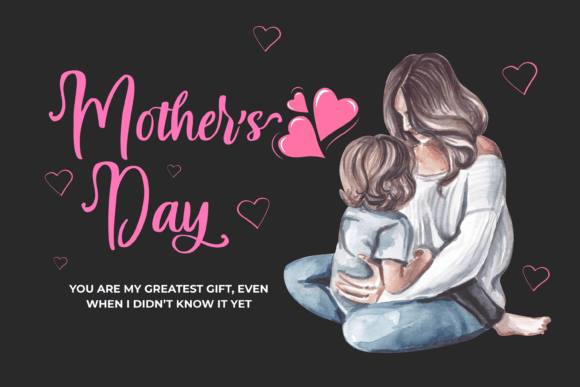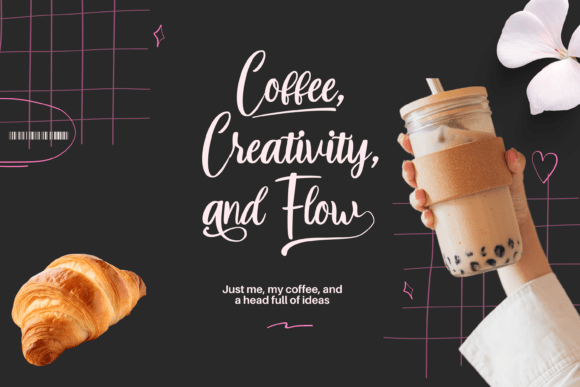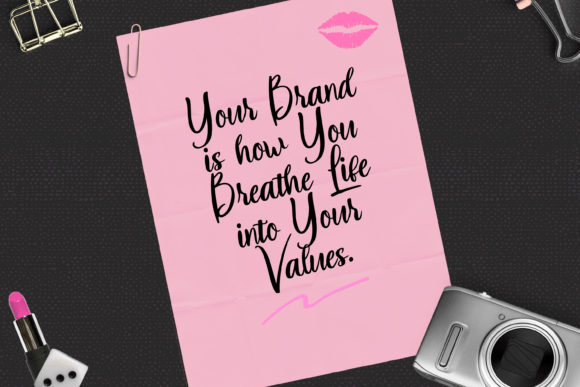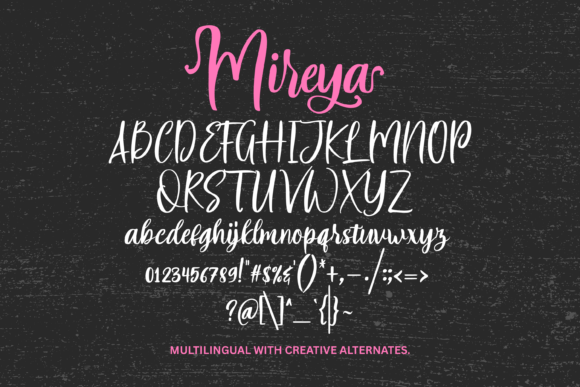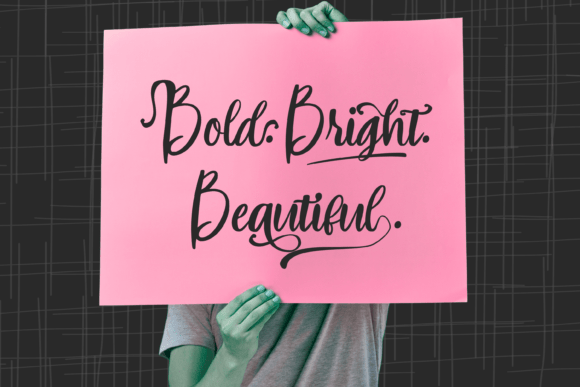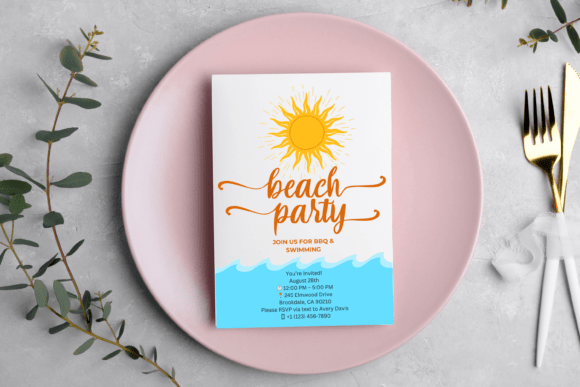
Introduction to Mireya Font Font
Fonts play a crucial role in design, and the Mireya Font font is a typeface that brings both character and versatility to any project. Whether you’re working on a branding project, a website, or a print design, the Mireya Font font offers a unique style that can elevate your work.
Mireya is a charming script font that blends soft curves with graceful movement — perfect for designs that crave both beauty and personality.
Every letter flows with a gentle rhythm, making it ideal for branding, wedding stationery, packaging, social media, and beyond Designed to feel handwritten yet refined, Mireya brings warmth and elegance into your creative work.
Key Features of Mireya Font Font
Why Choose Mireya Font Font?
The Mireya Font font is more than just a typeface – it’s a design tool that helps you communicate your message with style and clarity. Its unique character set and versatile design make it suitable for a wide range of applications, from elegant invitations to bold headlines.
With its carefully crafted letterforms and balanced proportions, the Mireya Font font ensures readability and visual appeal across all mediums.
What makes Mireya Font font special?
The Mireya Font font stands out with its unique design, exceptional readability, and versatility across various design applications.